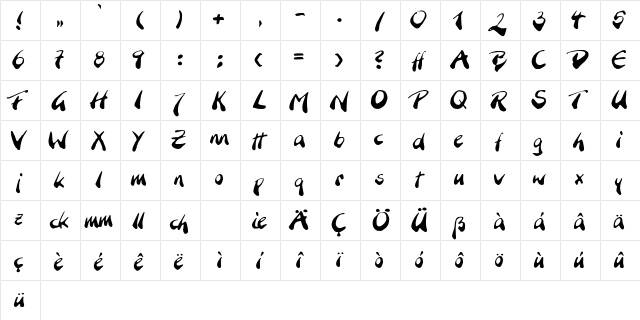
Diddl Maus Normal
Design Context for Diddl Maus Typeface
Diddl Maus is a composed and adaptable typeface that performs quietly and consistently across a wide range of design contexts.